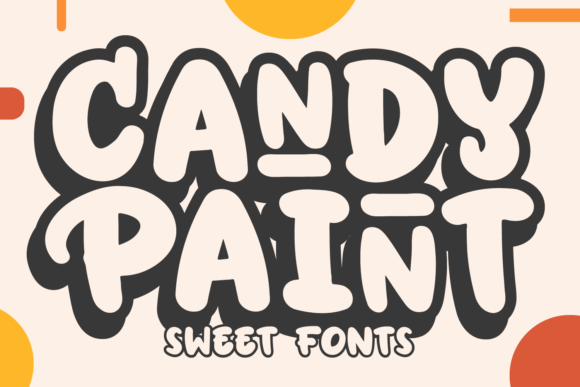
Looking for the best font to make your concert poster stand out? Look no further than Candy Paint Font! Created by Eifets, this display font is the perfect way to add a touch of sweetness and whimsy to your designs.
Candy Paint Font is a bubble font with a high-quality design that is both eye-catching and easy to read. It comes in four styles, giving you the flexibility to choose the one that best suits your needs. Plus, with easy access alternates, you can customize the font to fit your specific project.
Not only is Candy Paint Font great for concert posters, but it also works well for dessert packaging, food and drink menus, branding, websites, and more. With its playful and fun design, this font is sure to add a touch of sweetness to any project.